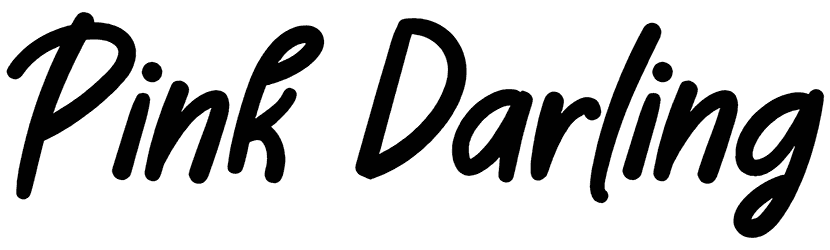
Pink Darling Font
You can communicate well with your followers if you use a realistic and casual letterform, such as the Pink Darling font, to decorate your words. This bullet journal font, with its modern and soft style, is going to make your design level up. Try this script font for your concert invitation flyer or other unique projects and surprise your viewers.